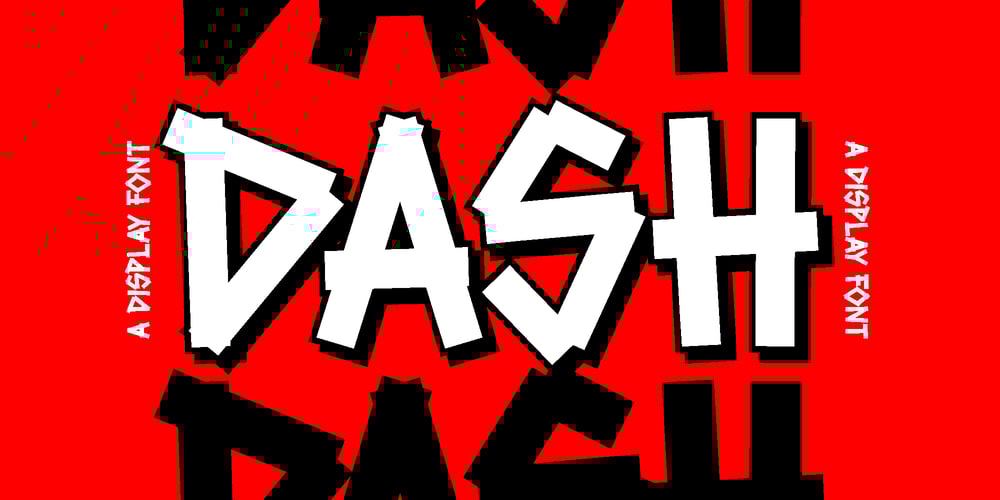
Dash Font Family was designed by Muhammad Jauhar Azmi and published by Brainware Graphic. Dash contains 1 styles and family package options. fancy and street youth cultural display font, street art theme typeface such as skateboarding, stencil and graffiti tagging stickers etc.